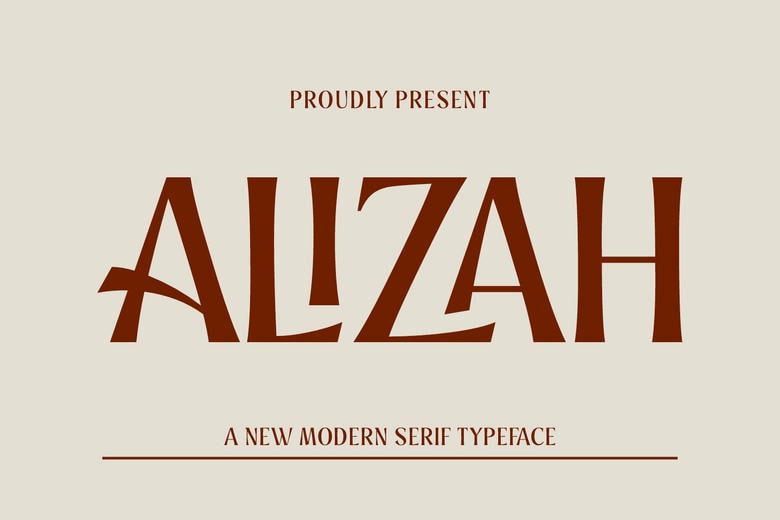
Alizah Font
Alizah is a modern serif typeface that adds luxury and style to your designs. Inspired by fashion and classic movie art, it’s a great choice for grand wedding invitations or elegant, modern themes.
Alizah stands out on party invitations, posters, and other decorative projects. Its subtle classical details give it a unique charm and add a smooth, stylish touch to any design.
Alizah works well for many uses, from magazine letterheads to café menus or hotel branding. Its unique ligatures make it a versatile and attractive choice for any typography project.
Alizah Serif Font